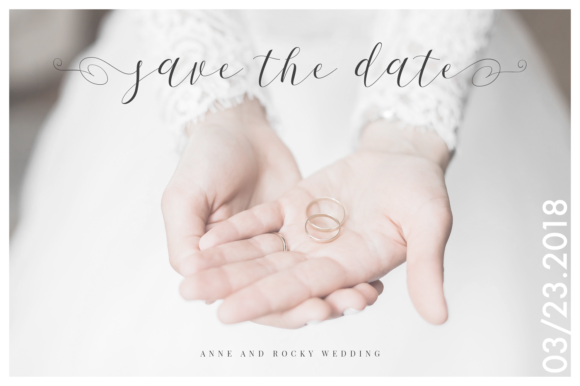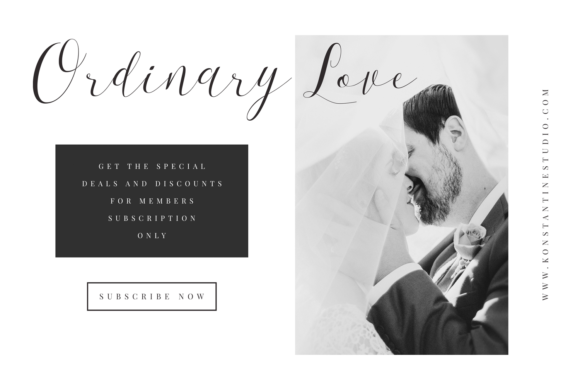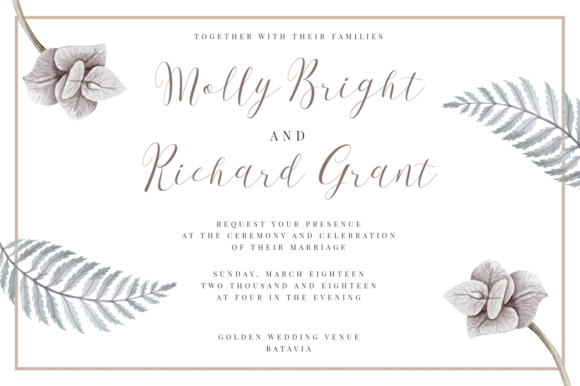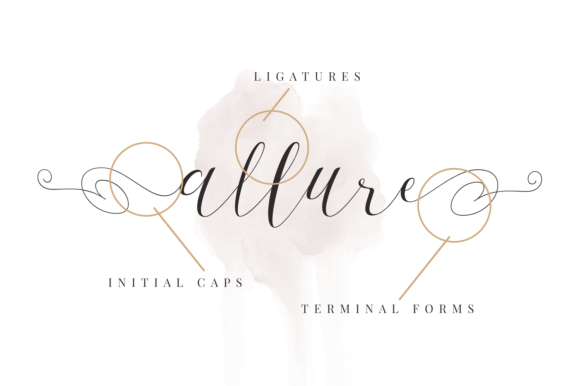
First Choice Font
About First Choice Font
First Choice is a delicate and elegant script font. Use it for any design projects that require a charming appearance!